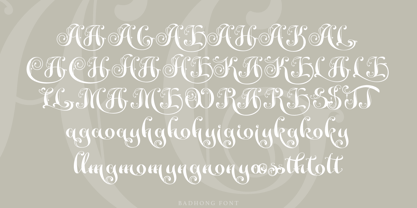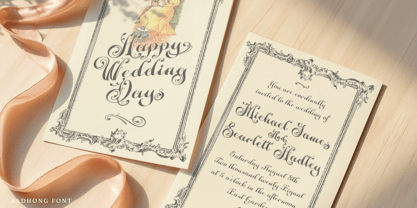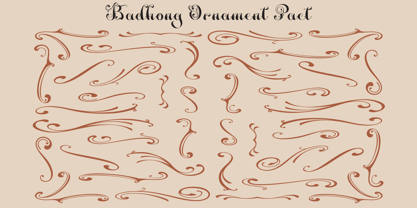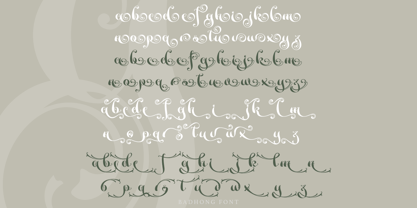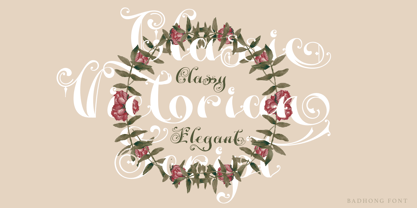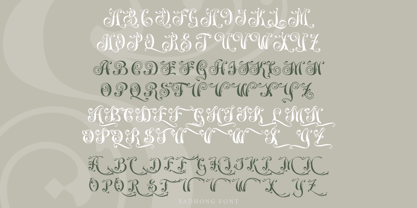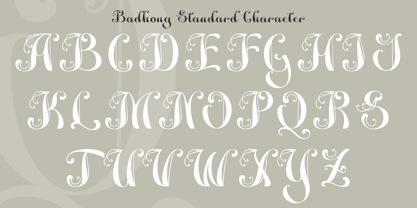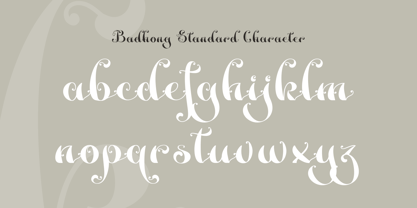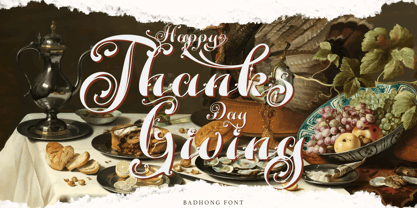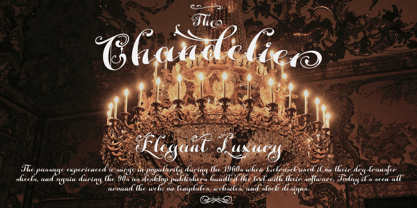
Badhong
by TypeClassHeroes
The Badhong Font Family was designed by Suandana ipandemade and published by TypeClassHeroes. Badhong contains 2 styles and family package options. More about this family
Badhong is a sophisticated decorative script that showcases a wealth of stunning alternates and ligatures, enhancing the elegance of your design projects. With its clean, feminine, and glamorous aesthetic, this typeface is ideally suited for a wide range of formal applications. Perfect for invitations, labels, restaurant menus, logos, fashion branding, makeup packaging, stationery, novels, magazines, books, and greeting or wedding cards, Badhong excels in both digital and print formats. Its versatility makes it an excellent choice for any advertising purposes, providing refinement and charm to elevate your creative endeavors.
Designers: Suandana ipandemade
Foundry: TypeClassHeroes